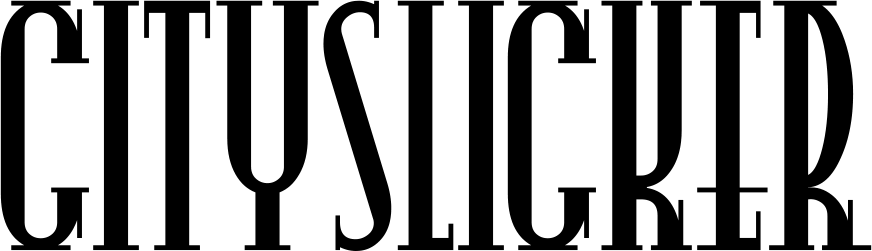
City Slicker Font
Skyscraper font is one of the best options that you can utilize for advertisement aspects. City Slicker with extra tall letters is perfect for billboards, real estate flyers, or any modern situation you consider. By downloading this retro font you can level up the text designs. By the way, note that this American tattoo font is a little bit illegible, so you better use it for short lines.